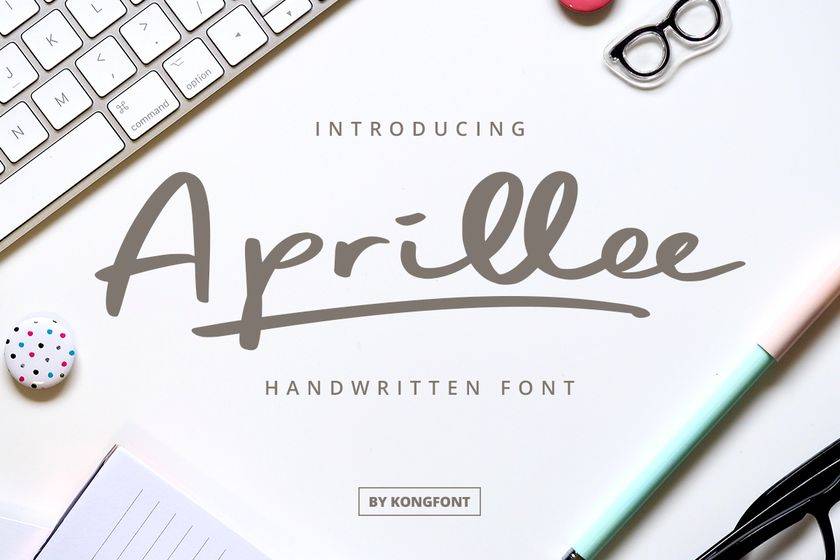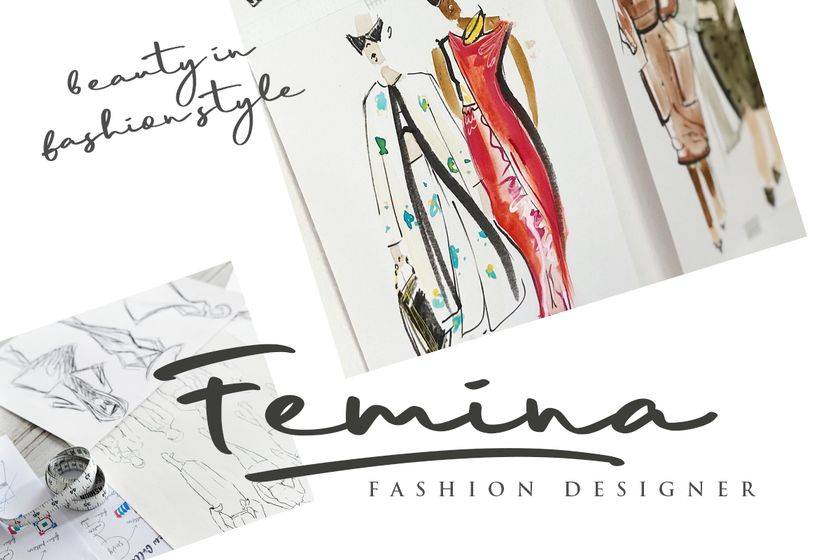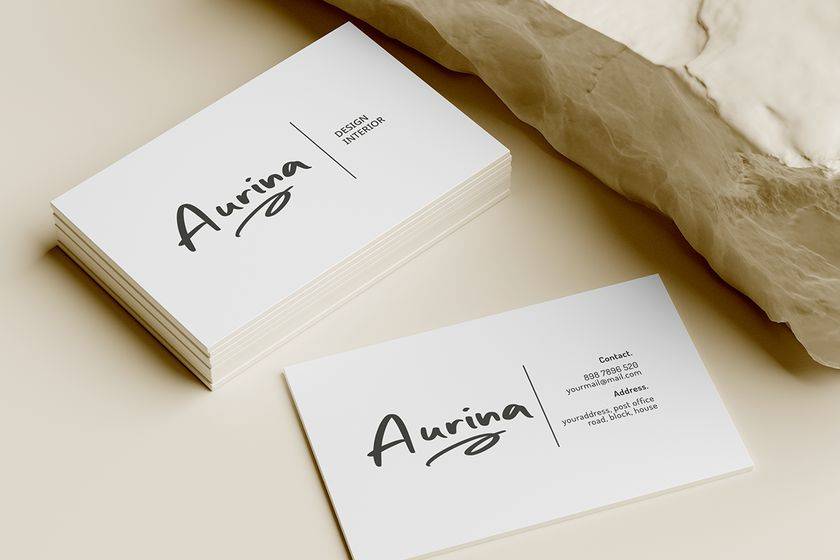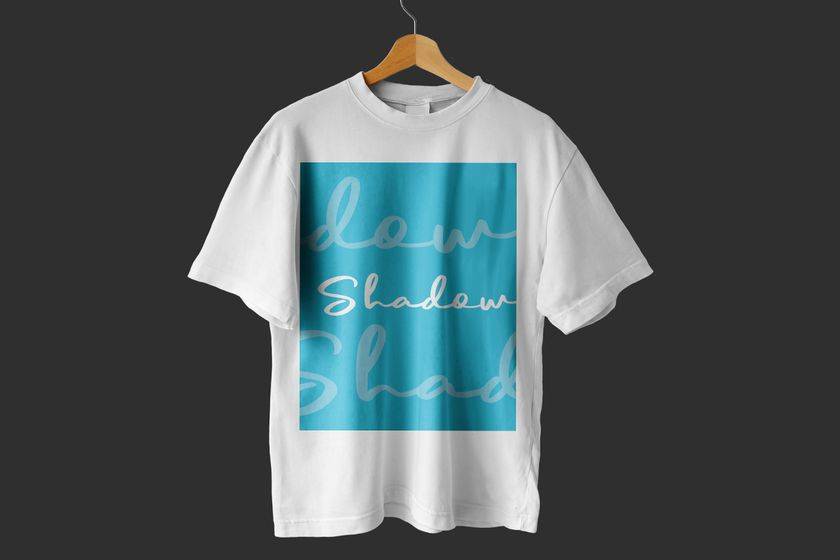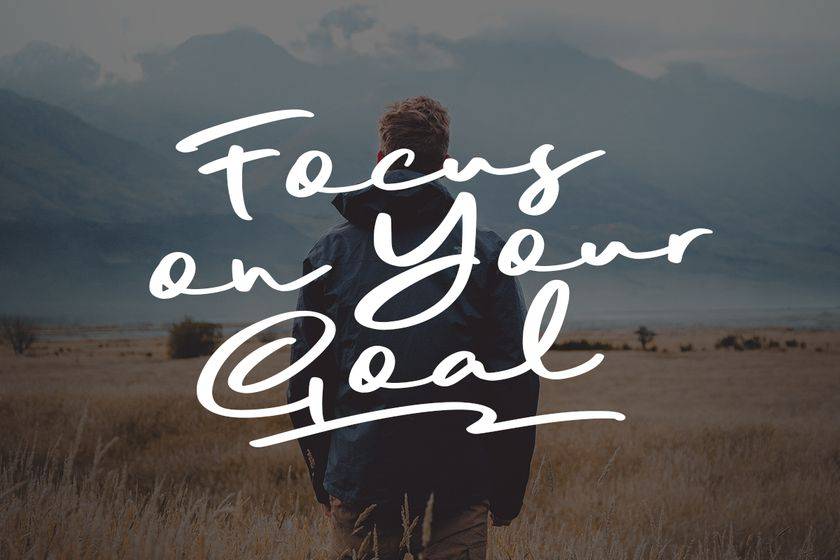
Aprillee is a playful, hand-drawn script font with a lively and informal character that feels both personal and approachable. Its casual, rounded strokes and varied letter heights make it perfect for creative projects, branding, and invitations that want to convey friendliness and charm. This font works best for headlines, logos, and packaging where a relaxed, handwritten touch is desired.
Aprillee Font
About Aprillee Font
| Font family | Aprillee Font |